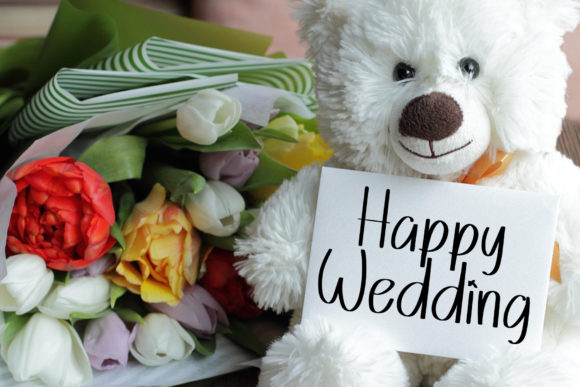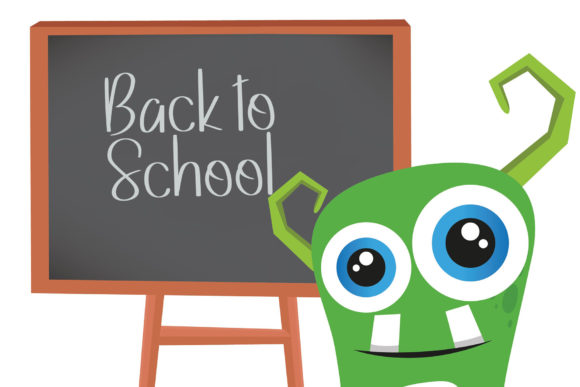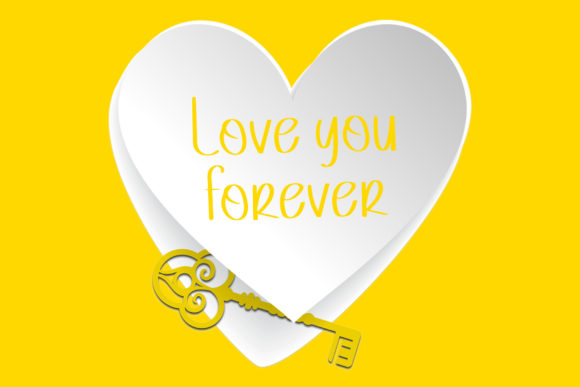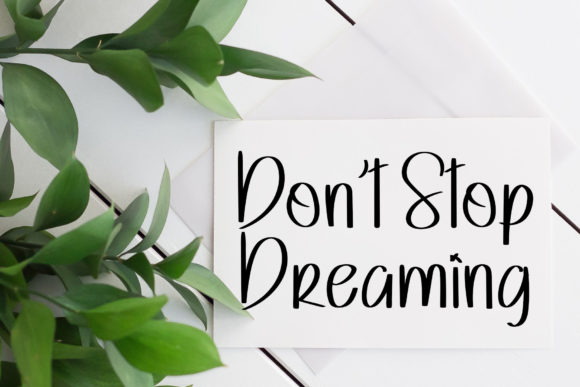
About Sweet Sugar Font
“Sweet Sugar” is a delightful and refined script font that exudes sophistication and elegance. Its charming and stylish alternates and ligatures make it the perfect choice for a wide range of design projects.
The graceful and flowing nature of “Sweet Sugar” adds a touch of sweetness and sophistication to any text. Each letter is carefully crafted with intricate details, creating a visually appealing and harmonious appearance. The font’s stylish alternates and ligatures offer a variety of unique letter combinations, allowing you to customize and enhance the overall look of your designs.
With its versatile and elegant design, “Sweet Sugar” is suitable for various projects such as branding, logos, invitations, stationery, and more. Its refined and sophisticated aesthetic can elevate the visual appeal of any design and create a memorable impression.
The font’s stylish alternates and ligatures provide endless possibilities for customization. By using these special characters, you can add unique flourishes and decorative elements to your typography, making your designs truly stand out. The font’s versatility allows it to adapt to different design styles and themes, ensuring that it can complement any project.
Whether you’re creating wedding invitations, branding materials, or social media graphics, “Sweet Sugar” will add a touch of elegance and sophistication. Its refined script style and stylish alternates make it a perfect match for projects that require a blend of charm, sophistication, and creativity.
In summary, “Sweet Sugar” is a cute and refined script font that radiates sophistication and elegance. With its stylish alternates and ligatures, it offers a range of customization options to make your designs unique and visually appealing. Whether you’re working on branding, invitations, or other creative projects, “Sweet Sugar” will add a delightful and charming touch to your typography.